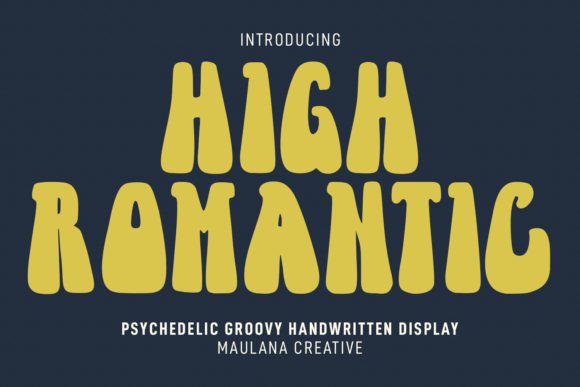
Meet High Romantic, the enchanting display font that's destined to transform your creative visions into captivating realities. As a member of the display font family, High Romantic is a spirited and vivacious typeface that brings an aura of jubilation to every design it graces.
With High Romantic as your creative companion, you'll find yourself immersed in a world of limitless possibilities. Unleash your imagination and witness how effortlessly this font elevates your designs to dizzying heights. No matter the project, be it brochures, posters, social media posts, or the enchanting realm of landscape design, High Romantic is your steadfast partner, ready to leave an indelible mark.
Imagine the allure of your landscape design projects when adorned with the charm of High Romantic. Its graceful curves and playful strokes capture the essence of nature's boundless beauty, transforming ordinary designs into captivating masterpieces.
High Romantic is not just a font; it's an invitation to embark on a creative odyssey. Allow this font to guide you, to inspire you, and to unveil dimensions of creativity that you never knew existed. With High Romantic, every design becomes a story, every project a testament to your artistic prowess.
Don't resist the allure of High Romantic any longer. Embrace its vivacity, revel in its joyous spirit, and let your creativity flourish. This font is not merely a tool; it's a catalyst for artistic alchemy, transforming the mundane into the magnificent.